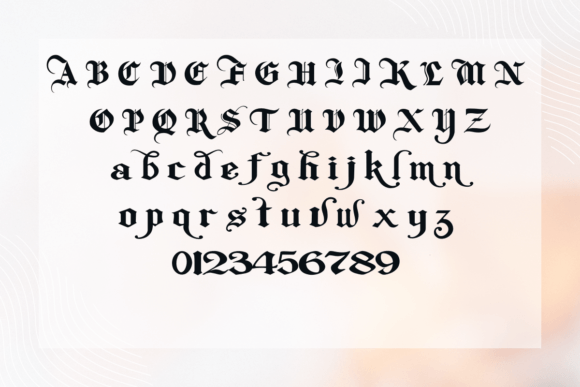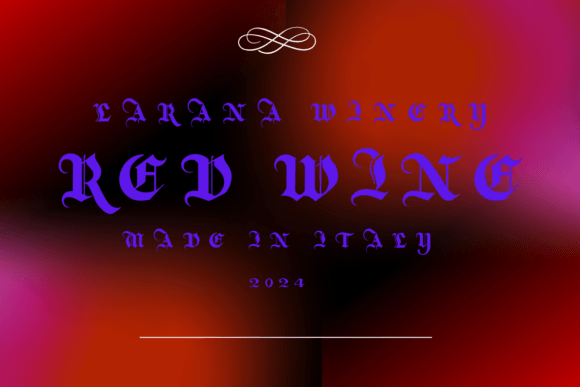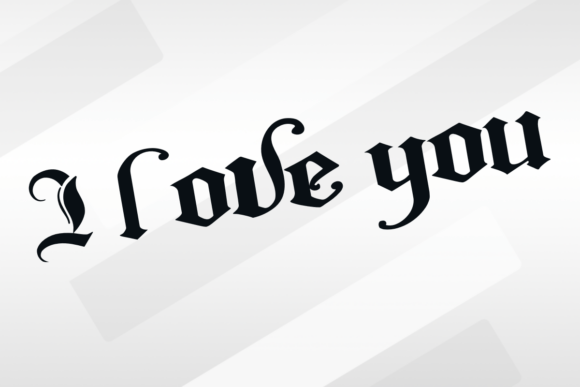
Old English Font
Old English Blackletter Font is a timeless and ornate typeface inspired by classic medieval calligraphy. With its intricate details and bold strokes, this font is ideal for elegant invitations, certificates, logos, gothic-themed designs, and historical projects. Add a touch of vintage sophistication and grandeur to your creations with this iconic blackletter style.